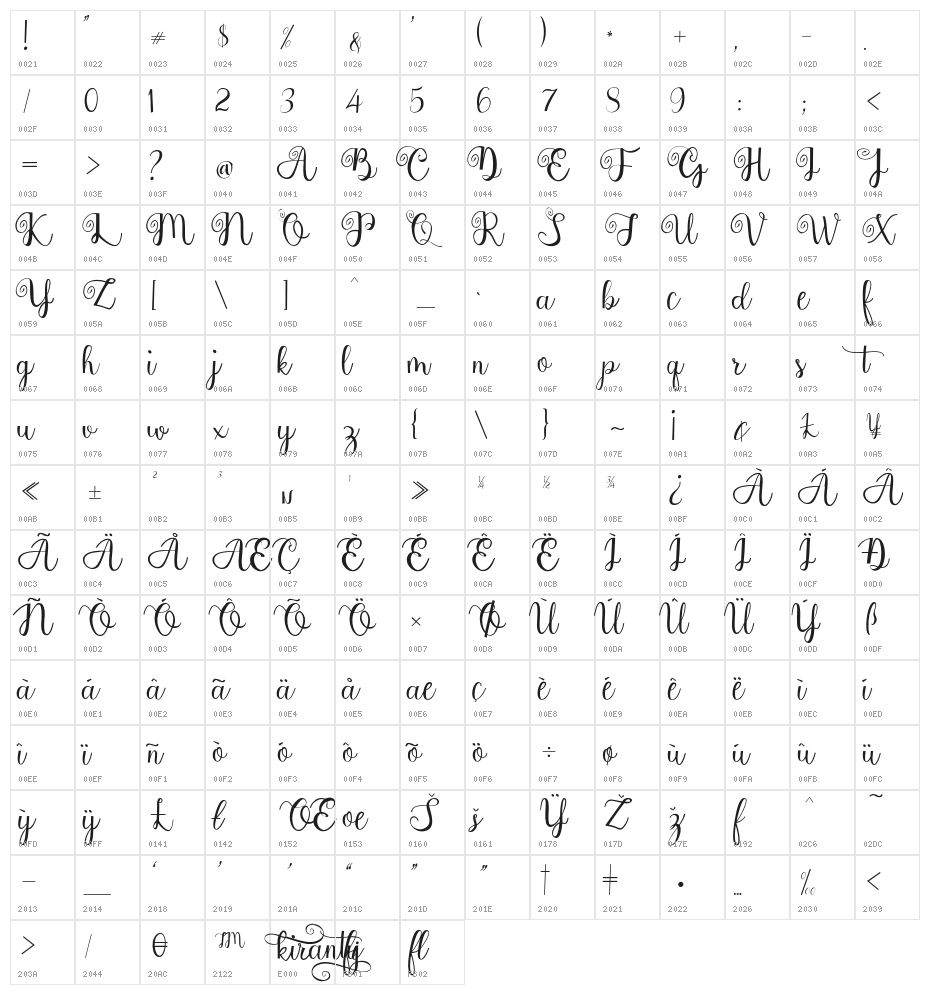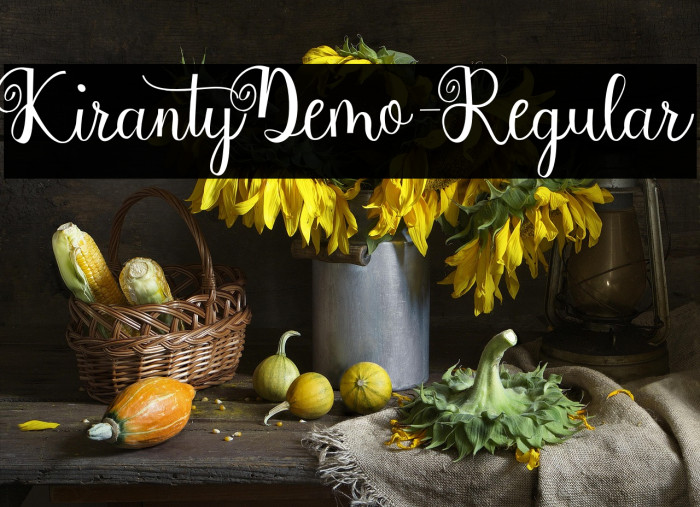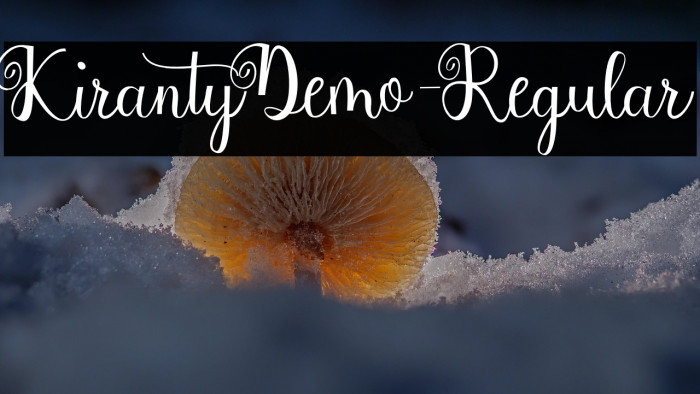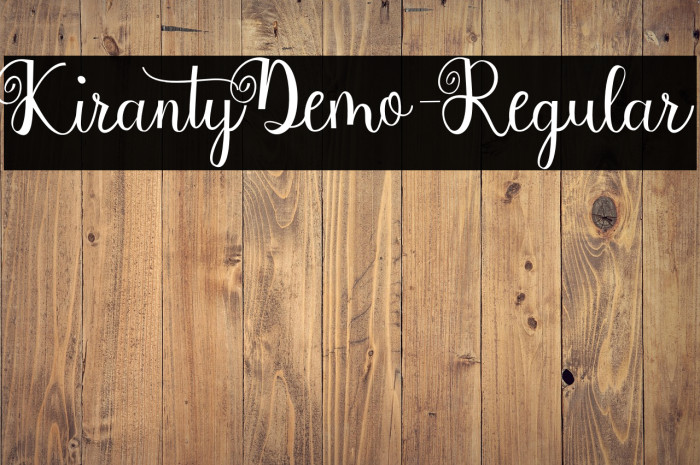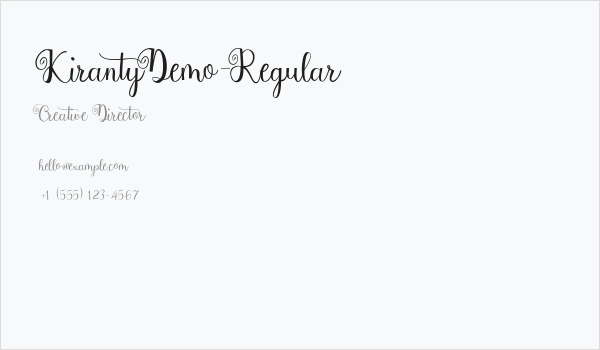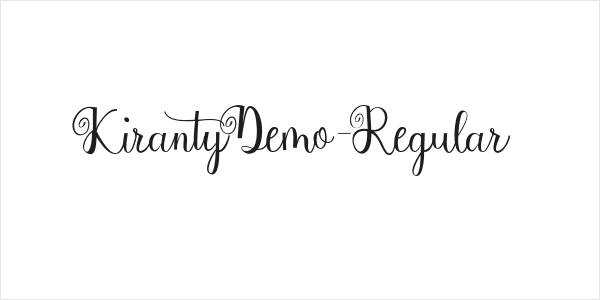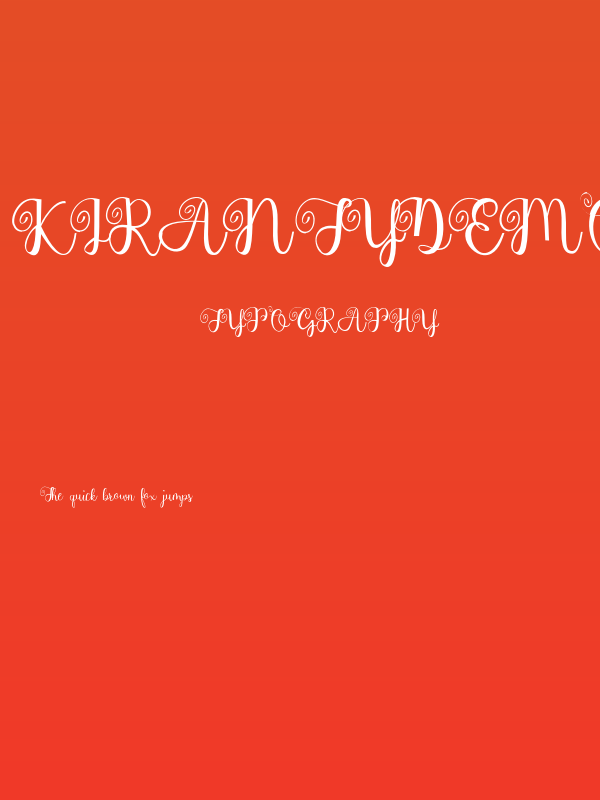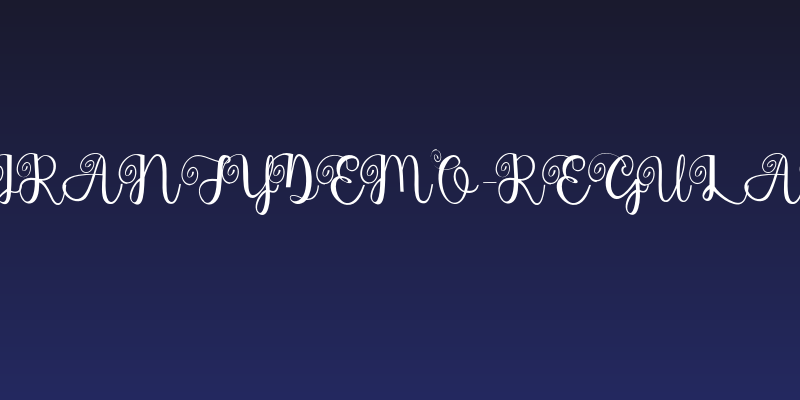
KirantyDemo-Regular Font
KirantyDemo-Regular Description
This font features an elegant and decorative script style with intricate swirls and flourishes, particularly noticeable in the uppercase letters. The lowercase letters maintain a smooth, flowing appearance, adding a touch of sophistication and charm. The numerals are consistent with the script style, offering a cohesive look. Special characters are designed with similar attention to detail, enhancing the overall aesthetic. The font's unique style makes it suitable for creative and artistic projects, where a touch of elegance is desired.
Use CaseLogos, Invitations, Decorative Text
Proposed ProjectsIdeal for wedding invitations, greeting cards, branding, and decorative posters.